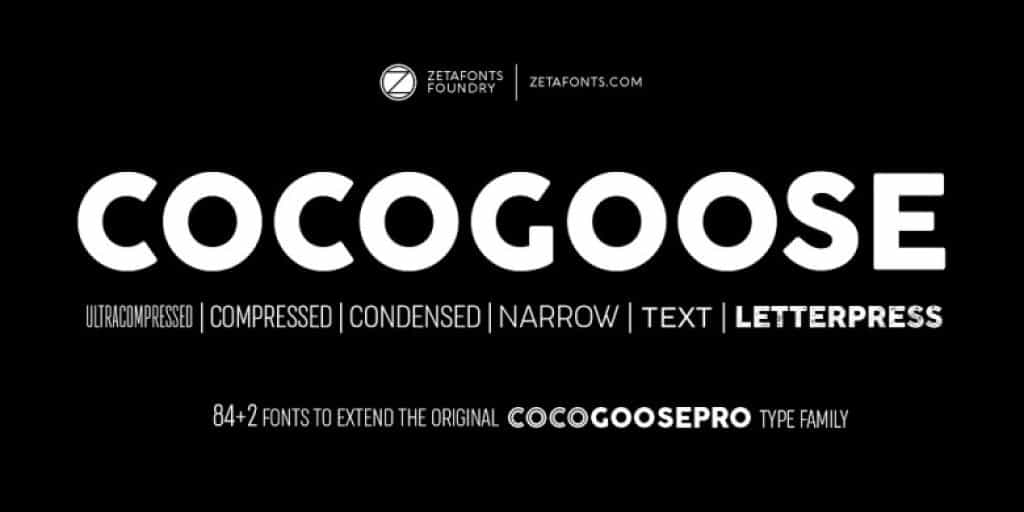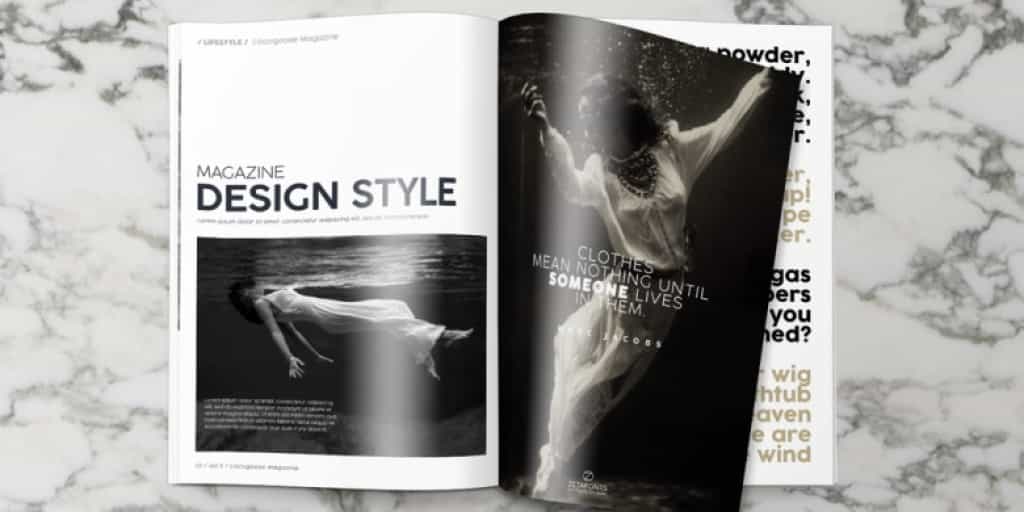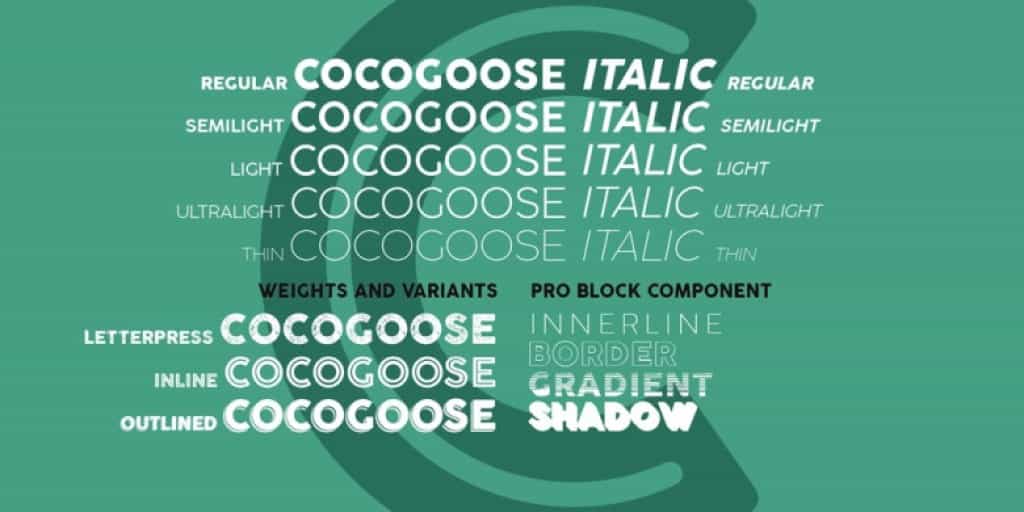
Cocogoose Pro is an organic sans serif font with the straight monolinear strokes and circular or rectangular shapes; the design has angular but rounded forms, softened by the corners’ rounding and optical adjustments that make Cocogoose Pro suitable for headings or logos with a vintage look and feel as well as texts. Due to its large size and the x-height it is very suitable and easy to read.